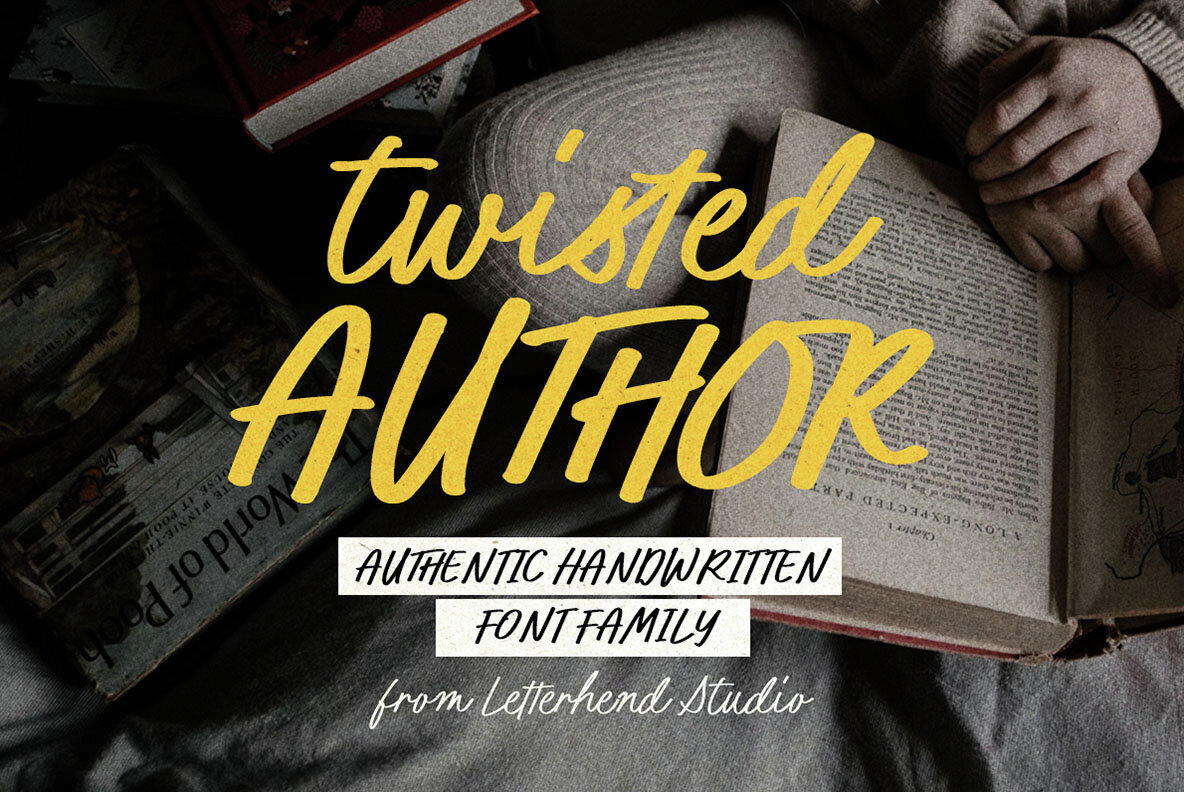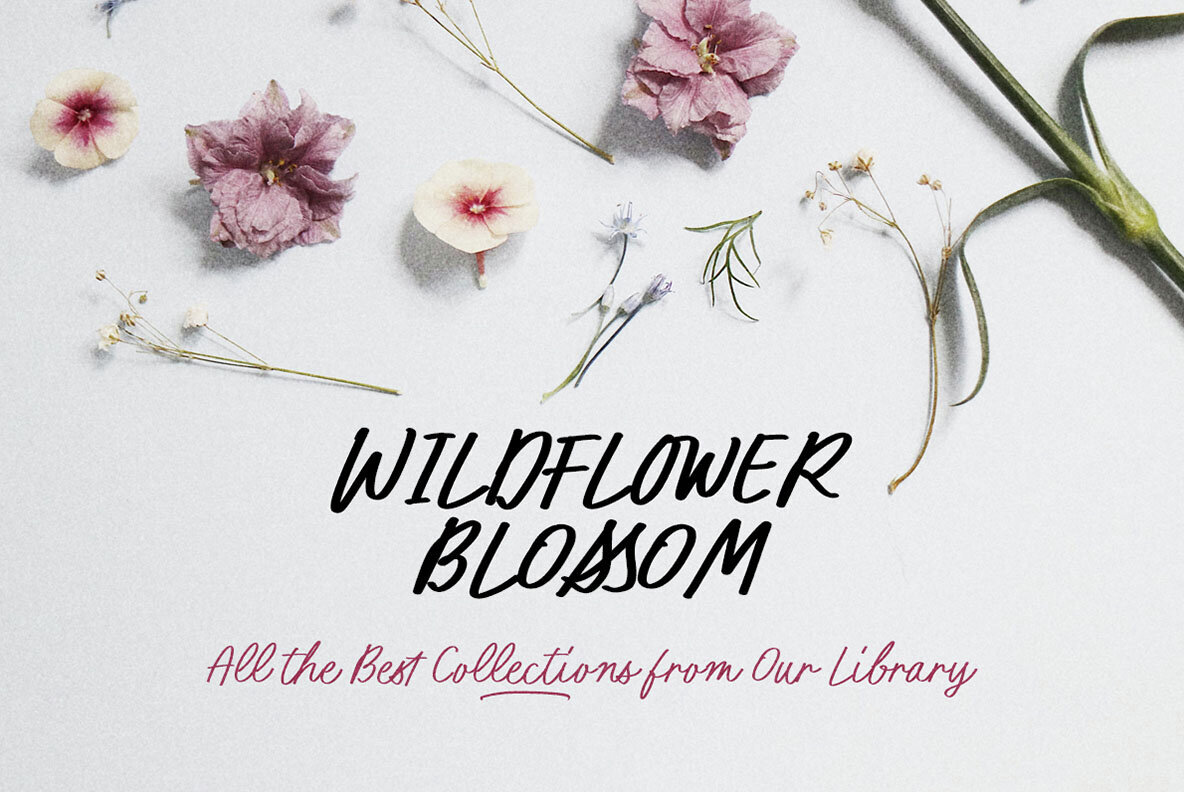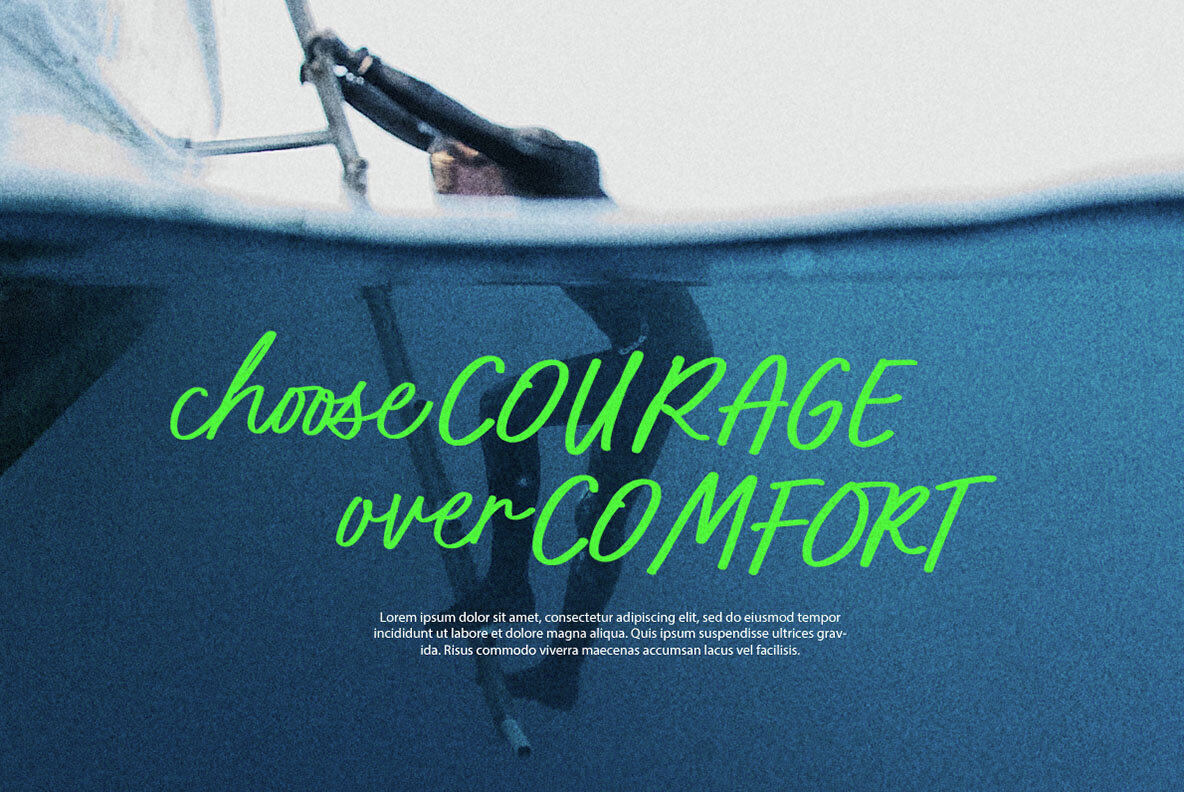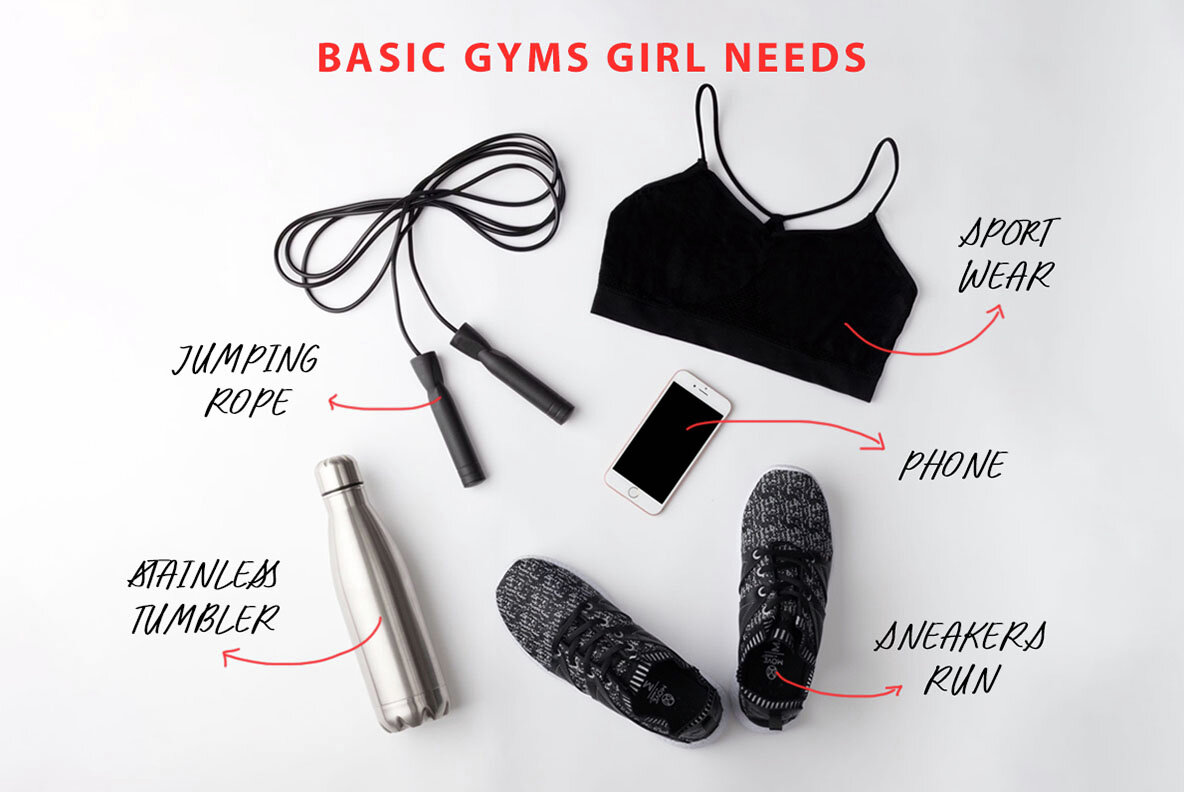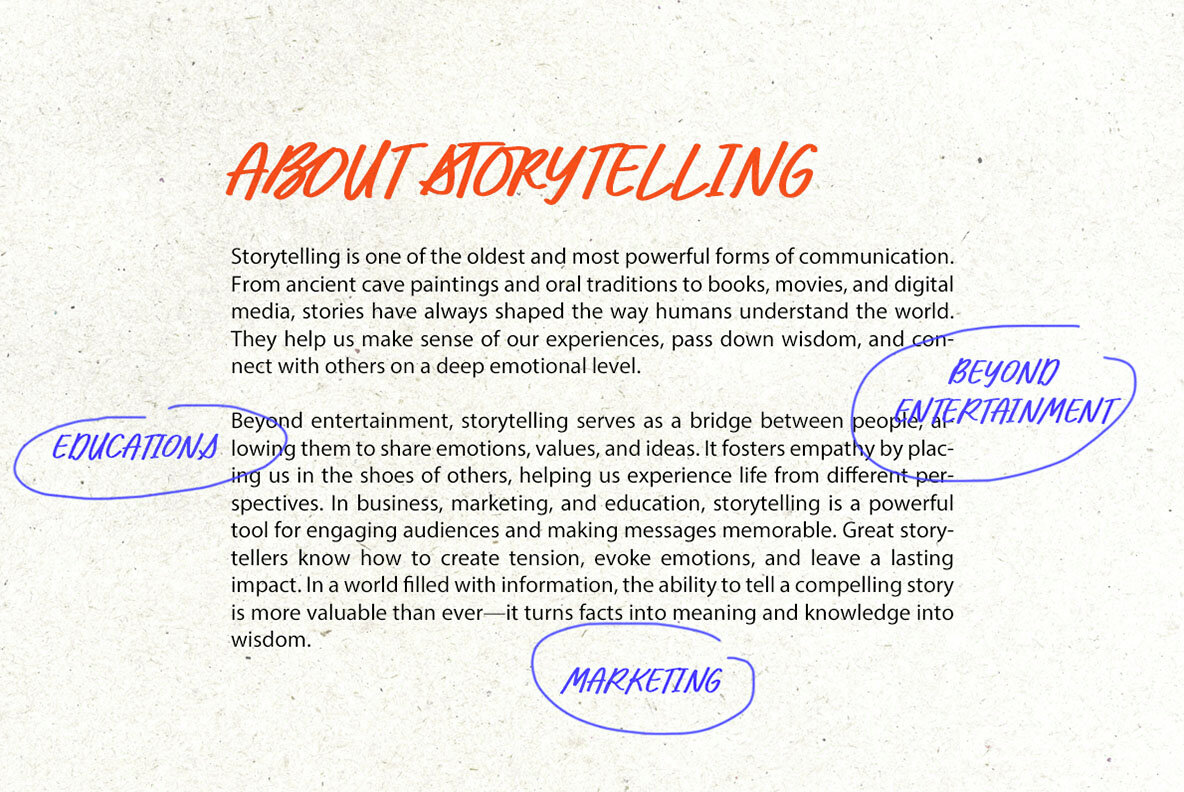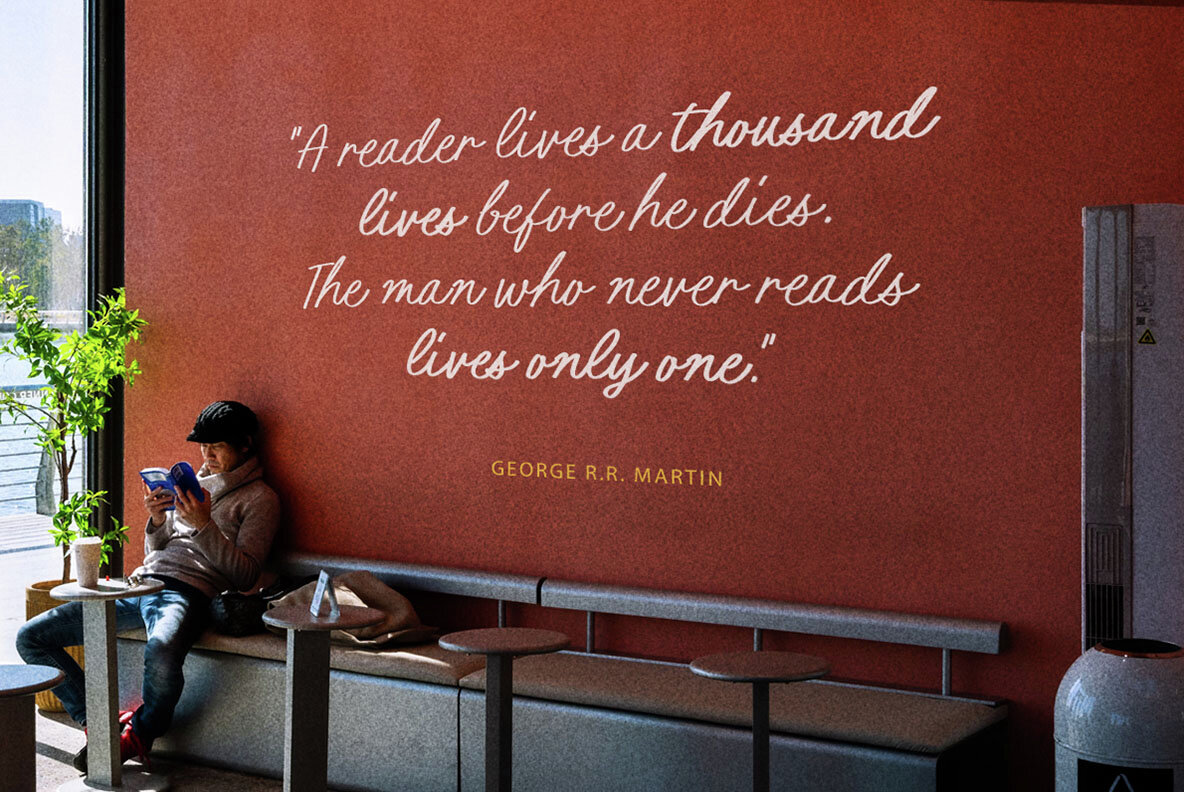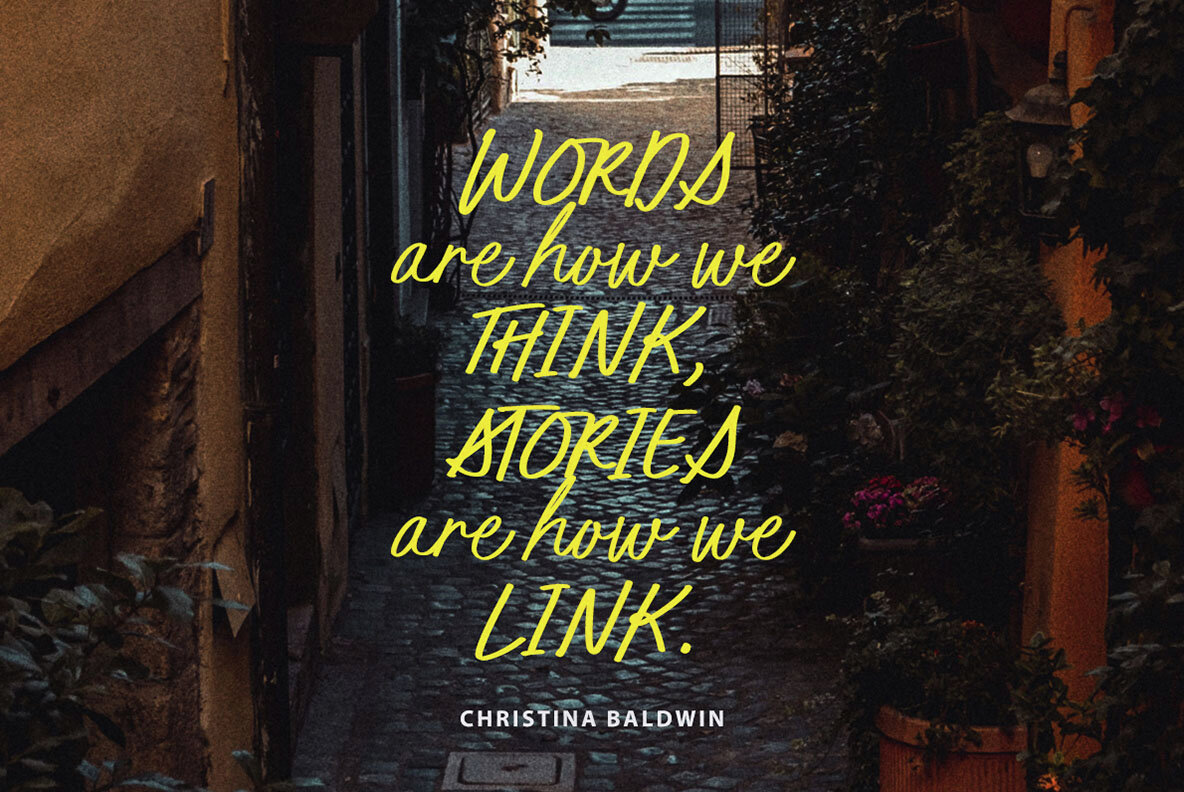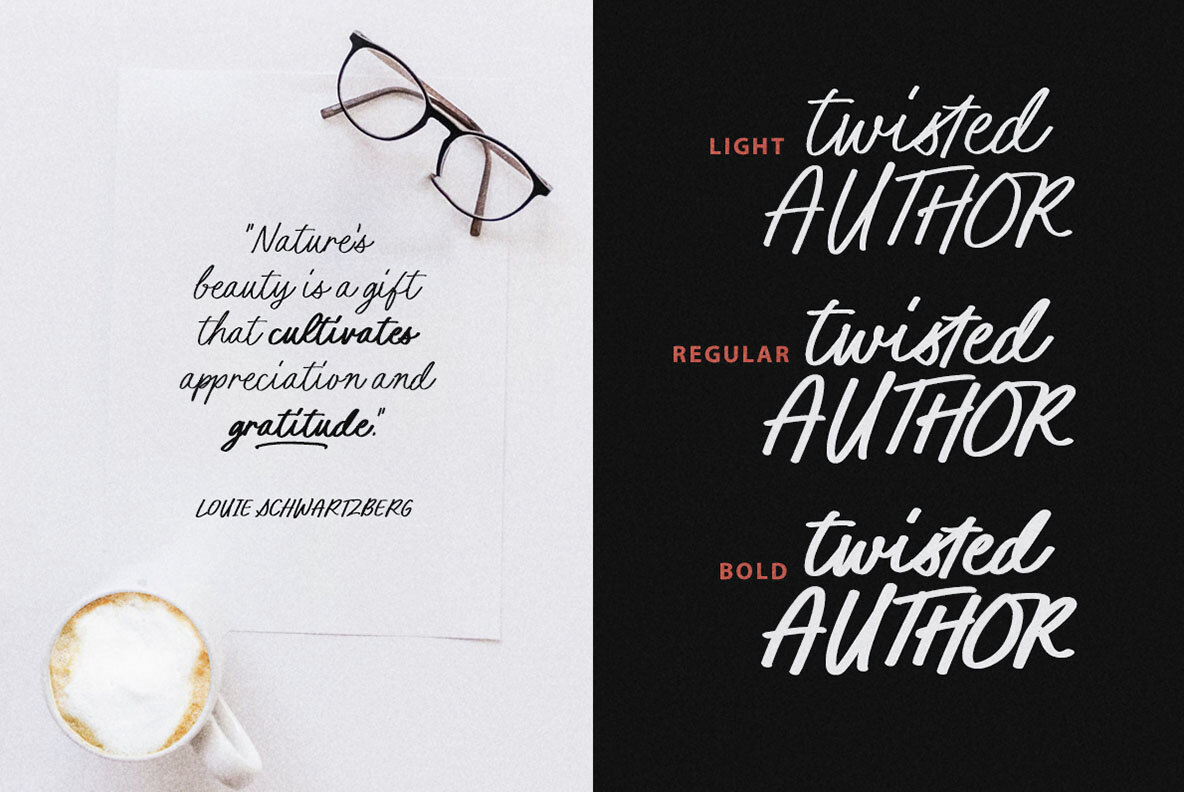
Twisted Author Font
Twisted Author is an authentic handwritten font family that captures the natural feel of expressive handwriting, perfect for storytelling designs, editorial layouts, book covers, and branding projects. With its organic brush strokes and fluid movement, this font brings warmth and character to any design. It includes three versatile styles—Regular, Bold, and Light—allowing you to create dynamic and cohesive typographic compositions. Features: We highly recommend using a program that supports OpenType features and Glyphs panels like many of Adobe apps and Corel Draw, so you can see and access all Glyph variations.